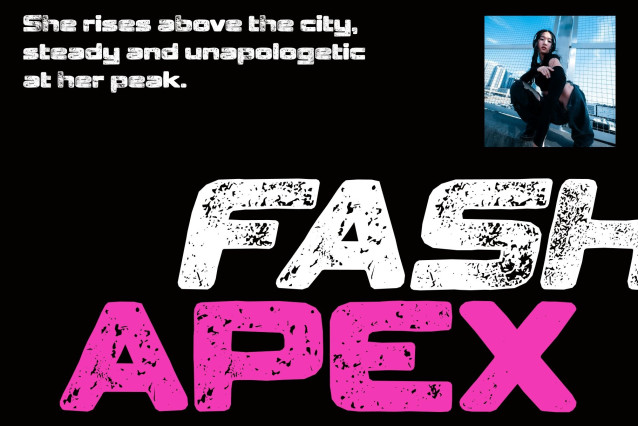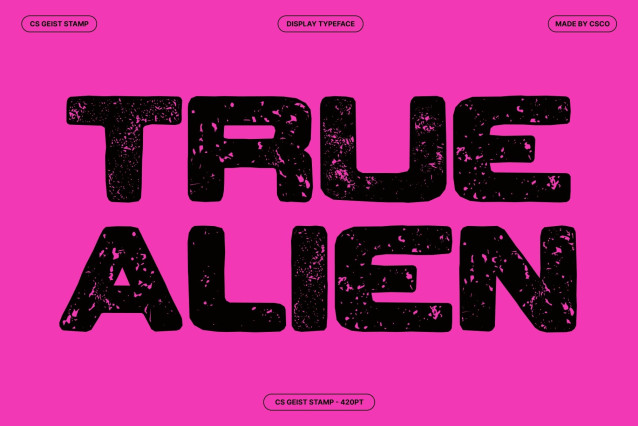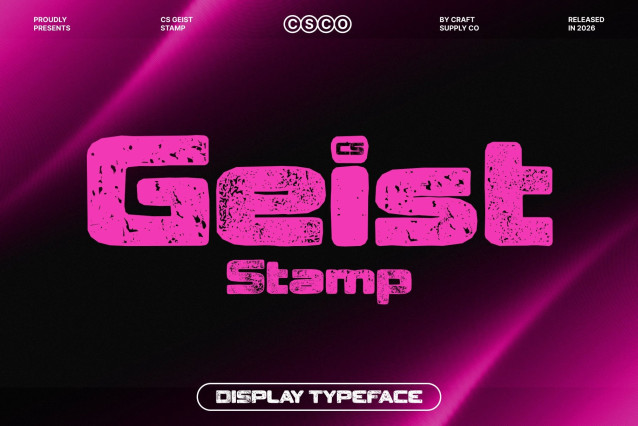
CS Geist Stamp Font
CS Geist Stamp – Techno-Inspired Sans Serif: Modern Energy with a Rugged Edge
Bold Display Font for High-Impact, Dynamic Design
A techno-inspired sans-serif typeface designed to channel the raw energy of future-focused aesthetics. Combining sharp, confident geometry with a weathered, textured finish, this “Stamp” edition bridges the gap between high-speed technology and industrial grit, creating a visual impact that is both powerful and artistically nuanced.
Modern Energy and Futuristic Appeal
With its dynamic, forward-looking design, this font embodies a sense of speed, innovation, and contemporary style. Its structured forms and clean lines project a polished, professional appearance, while the techno-inspired silhouettes maintain an edgy, high-energy character that feels at home in the digital age.
Artistic Texture through an Authentic Stamp Effect
The standout feature of this version is its meticulously crafted stamp effect, which introduces a rich, organic texture to the bold letterforms. By simulating the distressed imperfections of a physical ink press, the font gains a tactile, handcrafted quality. This gritty finish adds a layer of “human” dimension to the techno structure, breaking away from digital sterility.